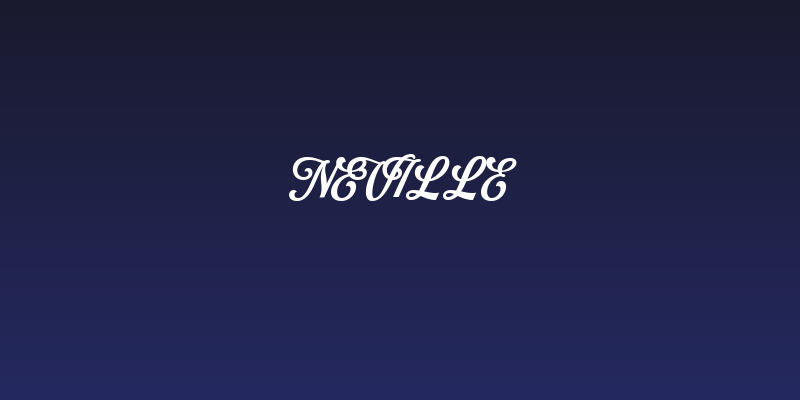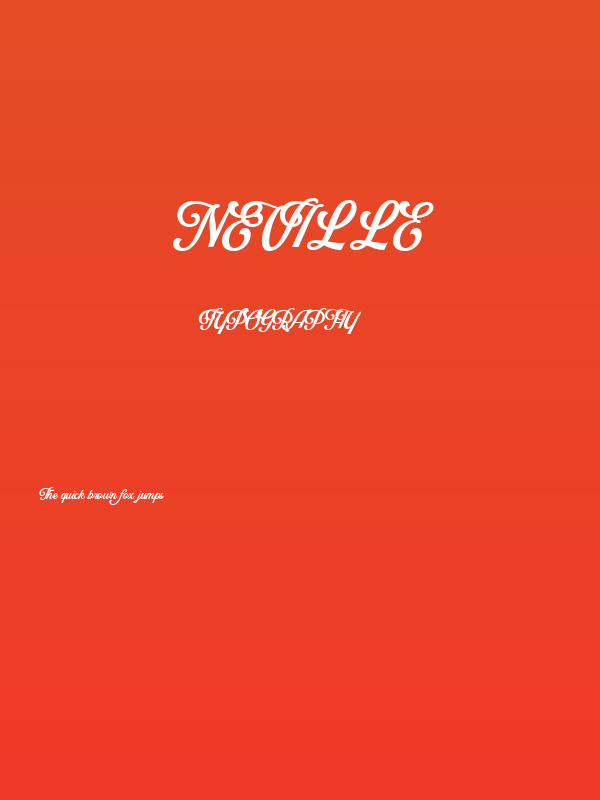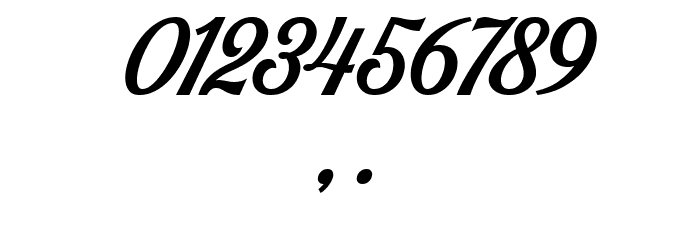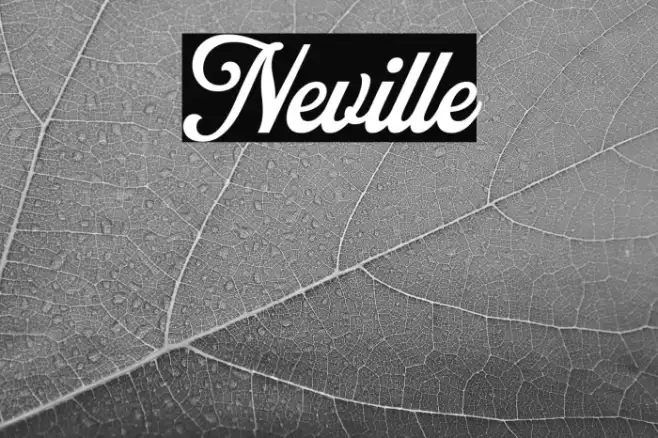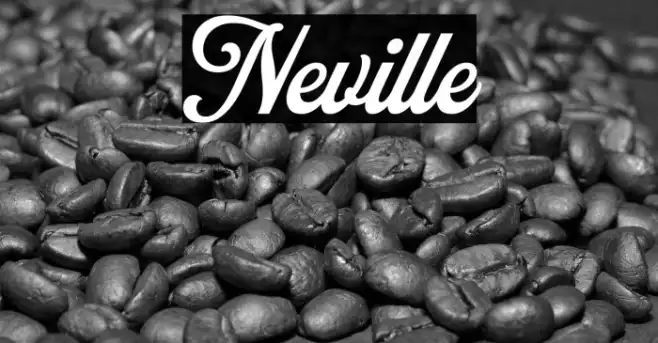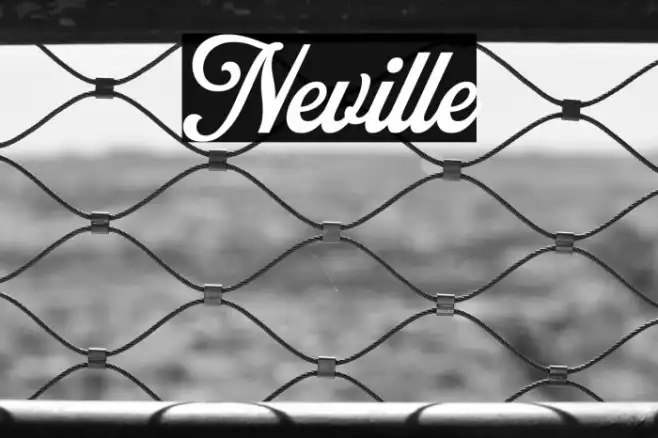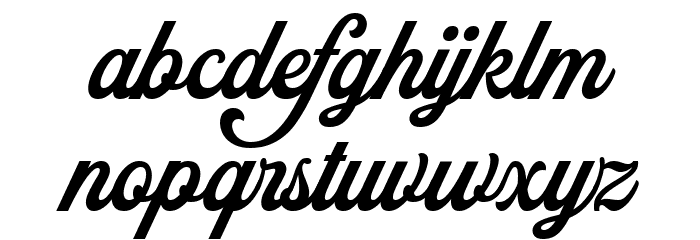
Neville Font
Neville Description
This font features a classic script style with elegant, flowing lines and a sophisticated appearance. The uppercase letters are ornate and slightly slanted, giving a sense of movement and grace. The lowercase letters maintain a consistent style, with smooth curves and a harmonious flow. The numerals are clear and distinct, matching the overall aesthetic of the font. This typeface is ideal for projects that require a touch of elegance and formality, such as invitations, branding, and decorative headings. The special characters are designed to complement the letterforms, adding to the font's versatility.
| Proposed Projects | Ideal for wedding invitations, luxury branding, and decorative headings. |